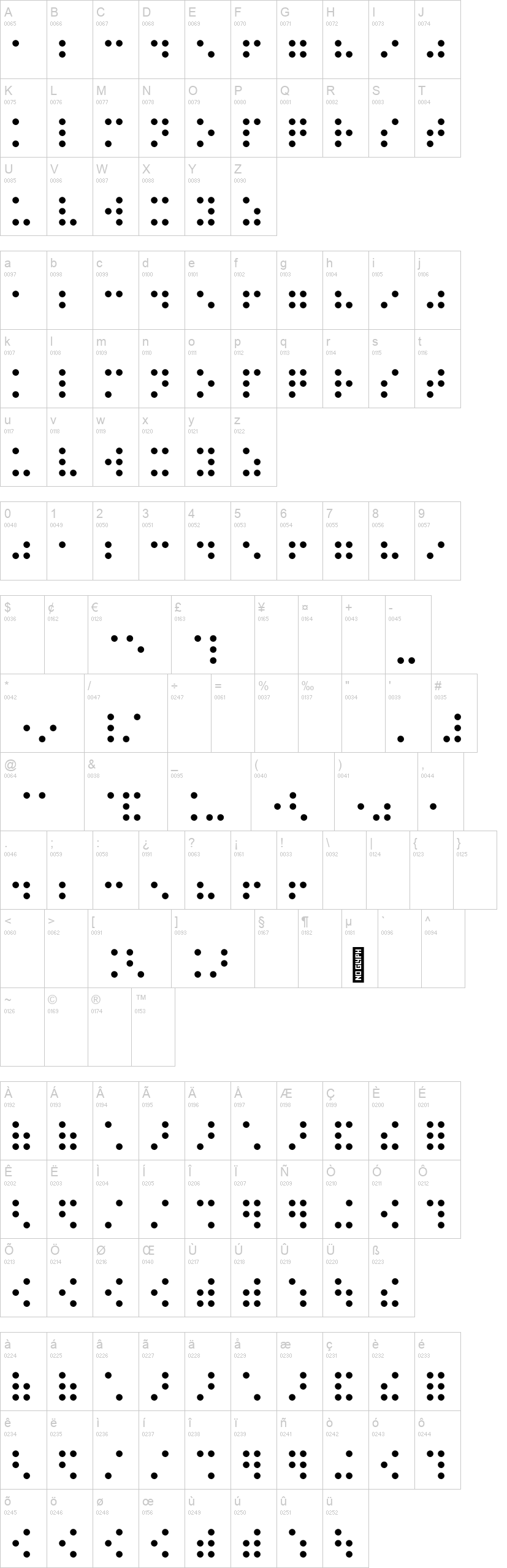
Note of the authorThe typeface "Night Braille" is part of a larger family "Night".
This Braille weight allows the uses to type 6 dot Braille without any existing knowledge on the system. The font uses UEB as its base language and we recommend checking with a translation/transcriber. Bonez Designz has made the best effort to ensure the sizing, positioning and dot compensation is correct but cannot 100% guarantee this. As the typeface is digital, on screen it is simulated Braille. Actual Braille is tactile. Braille also uses symbols to indicate capital letters, bold and italic.